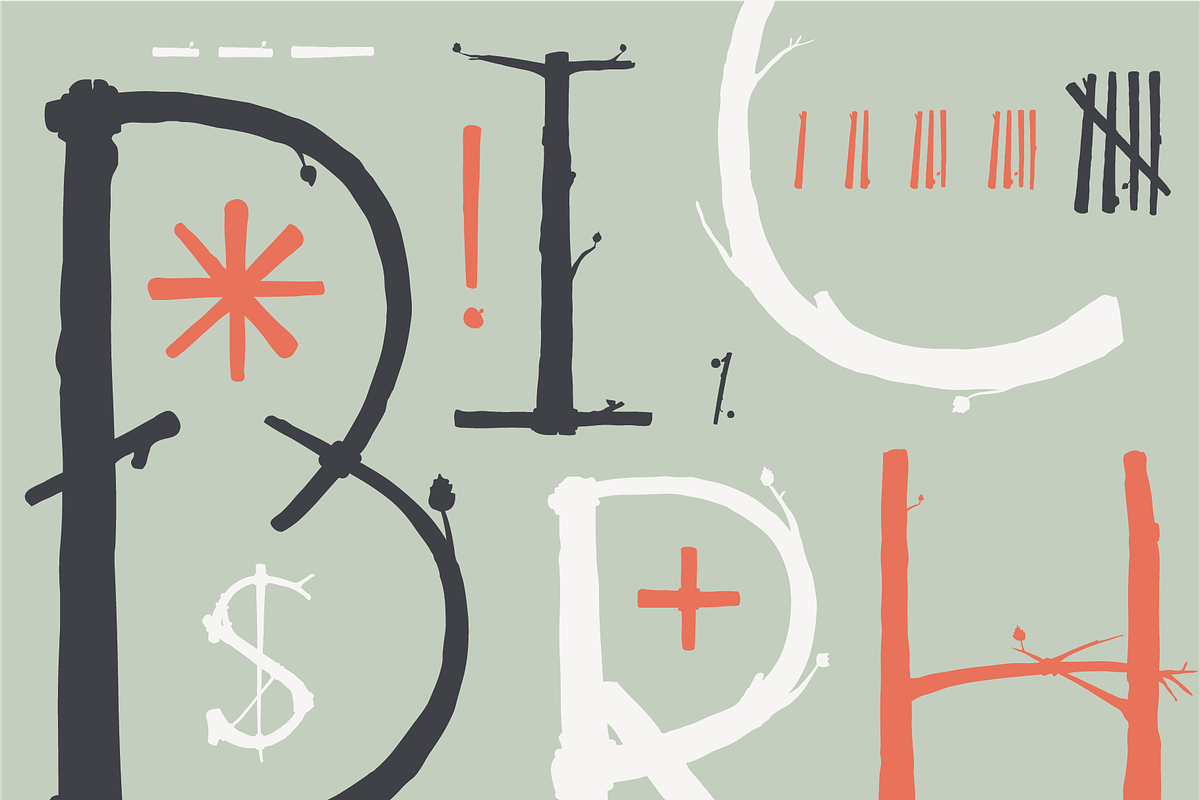
Birch Is Right Here – Fill Font Free Download is a bold and eye-catching display typeface designed for designs that need a strong presence. With its unique structure and dynamic filled-in letterforms, this font is perfect for headlines, branding, posters, product labels, and anything that demands visual impact.
Its thick, filled design gives your text a solid, confident look, while maintaining a playful and creative style. Whether you're designing for modern brands, seasonal campaigns, or promotional materials, Birch Is Right Here – Fill Font brings energy and character to your work.